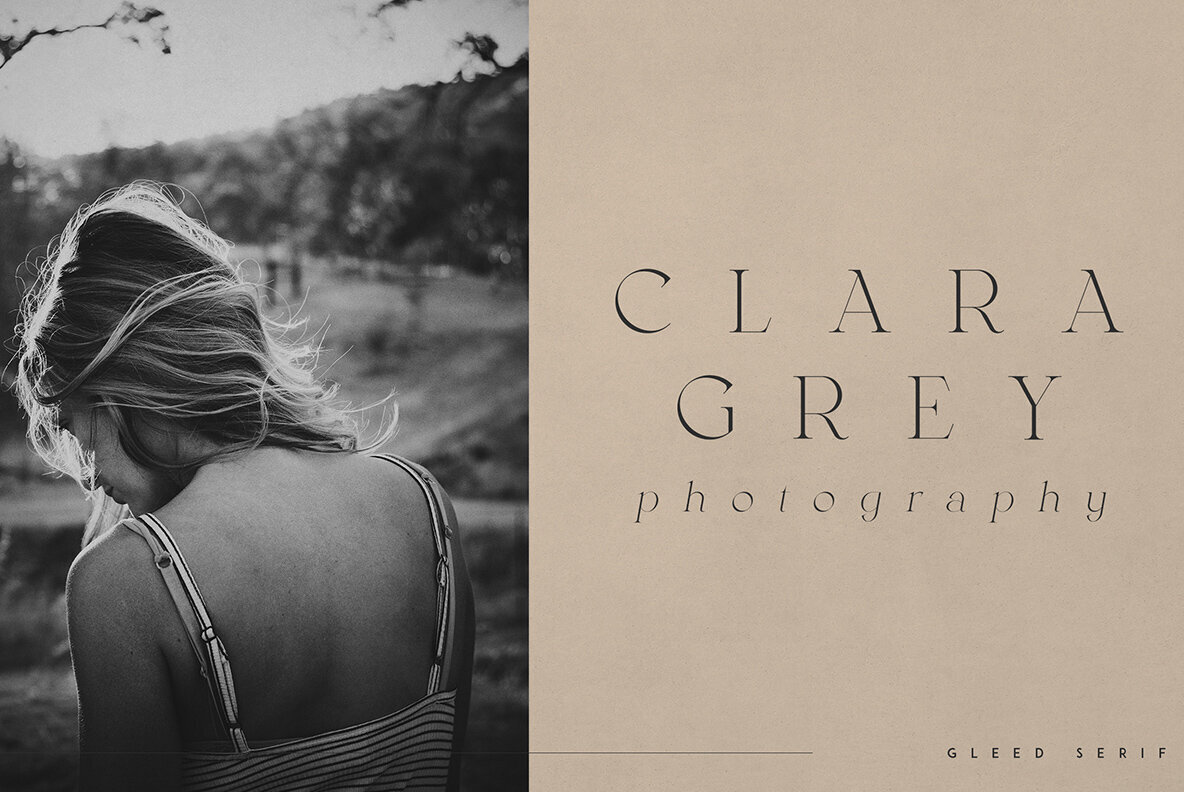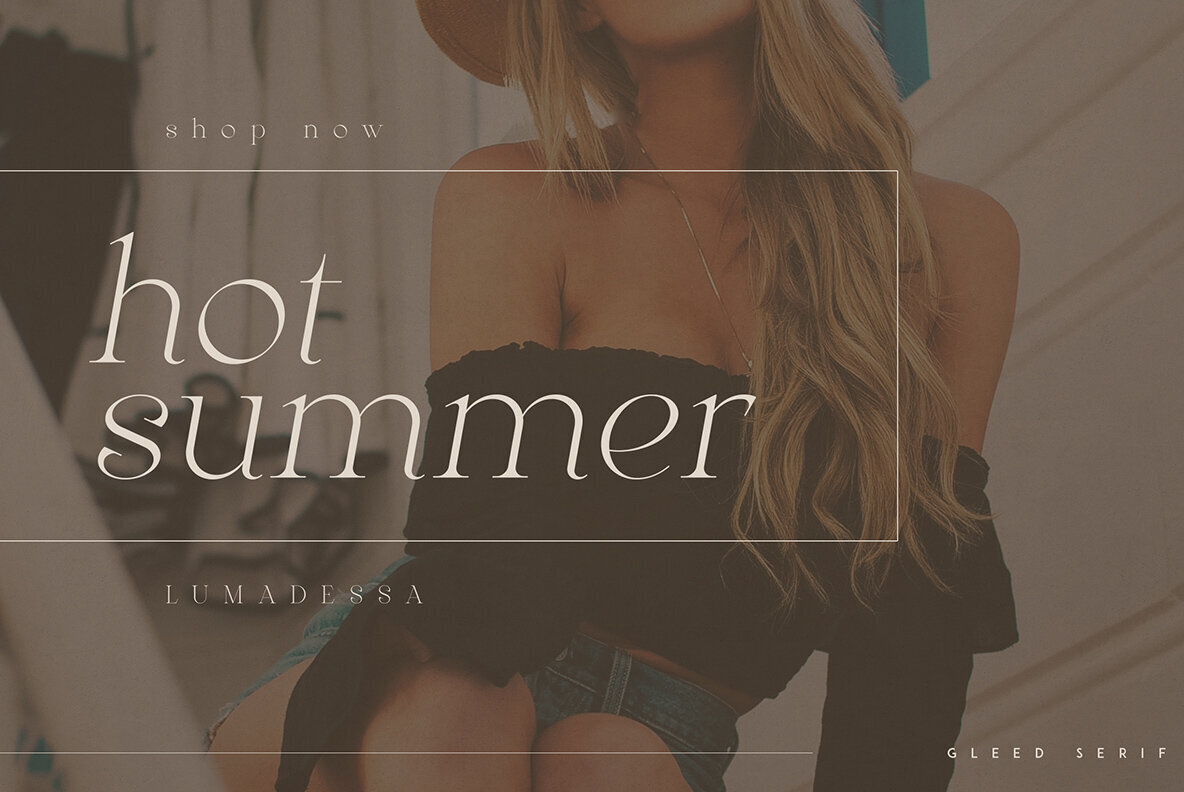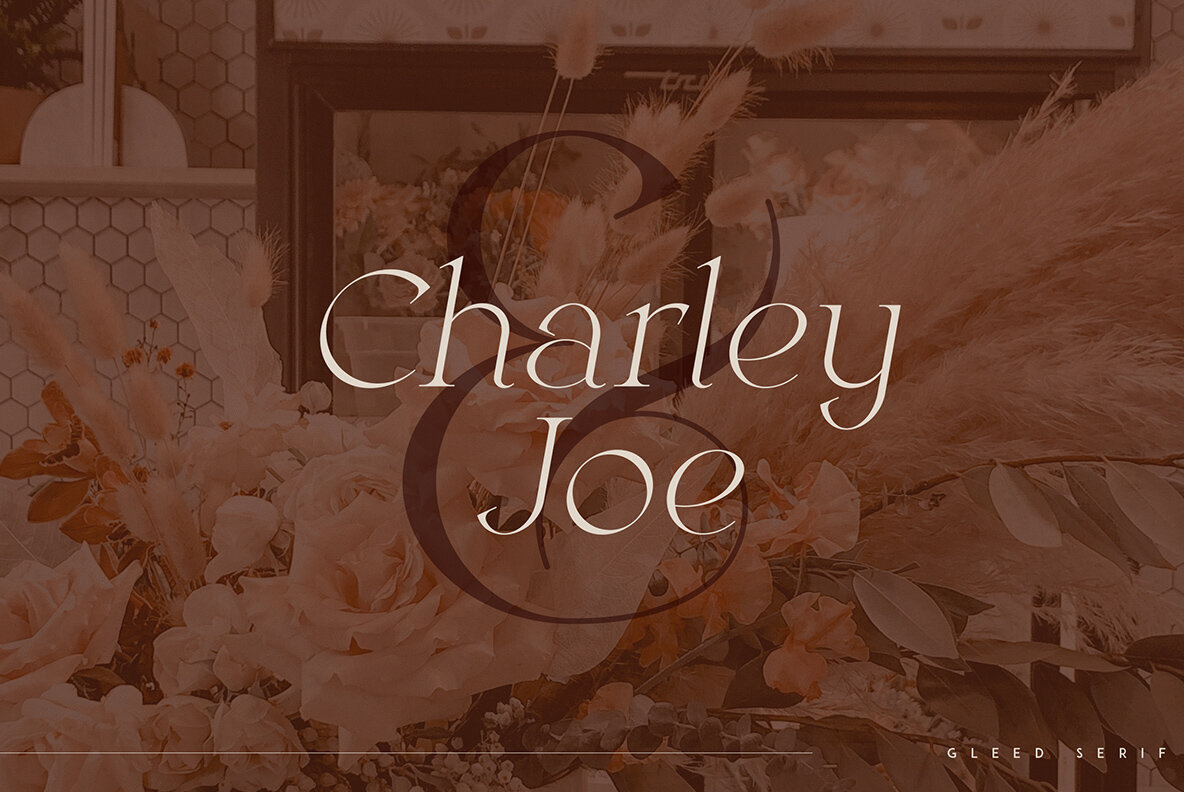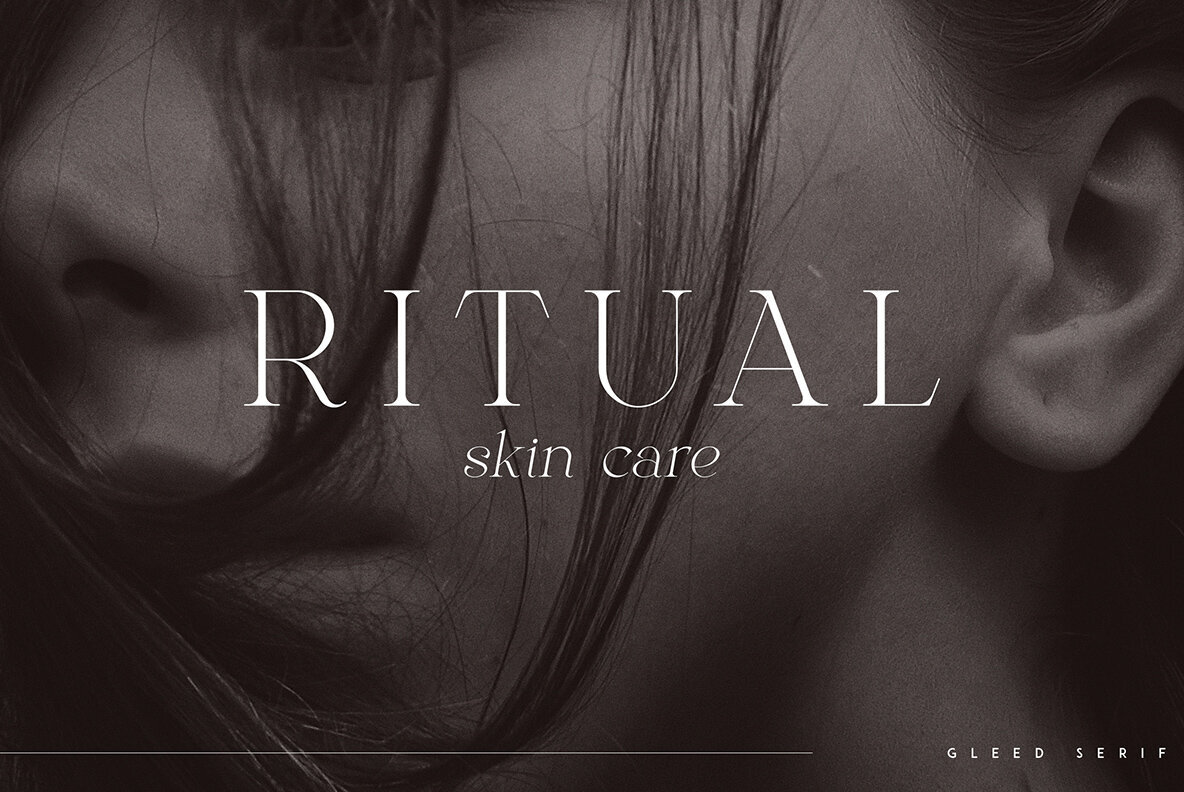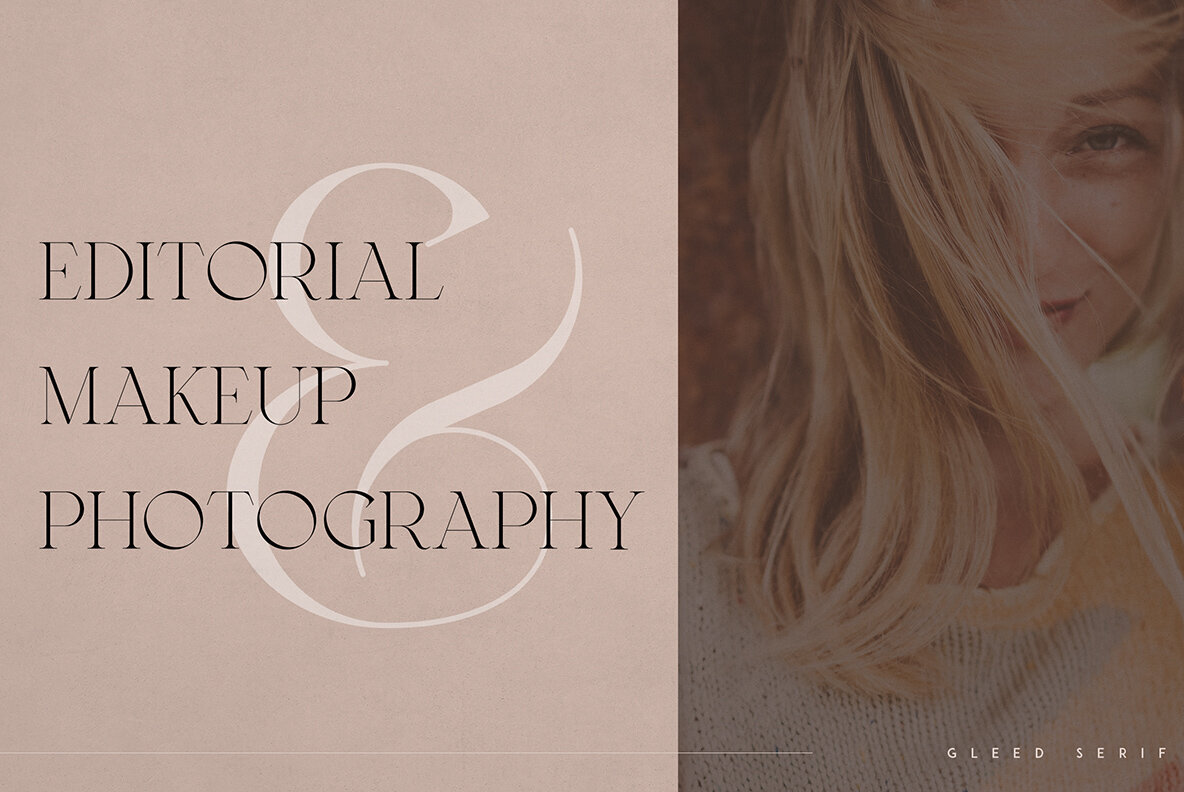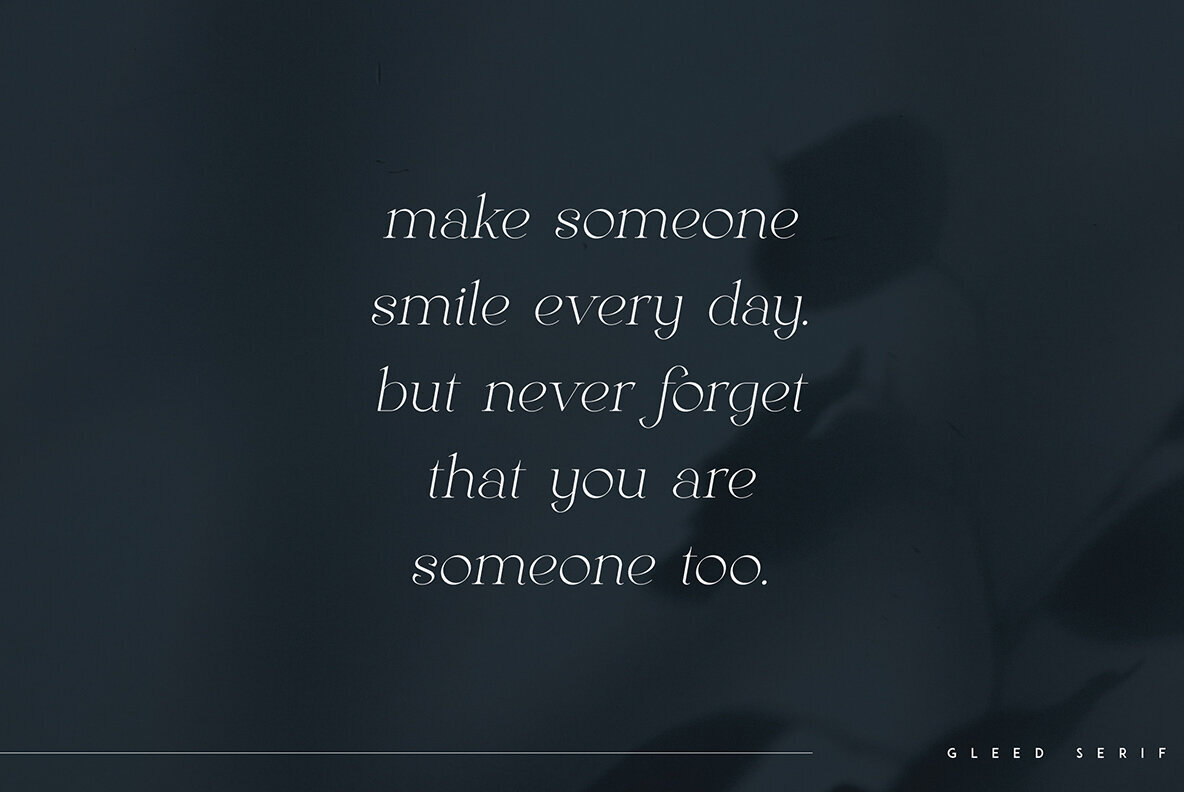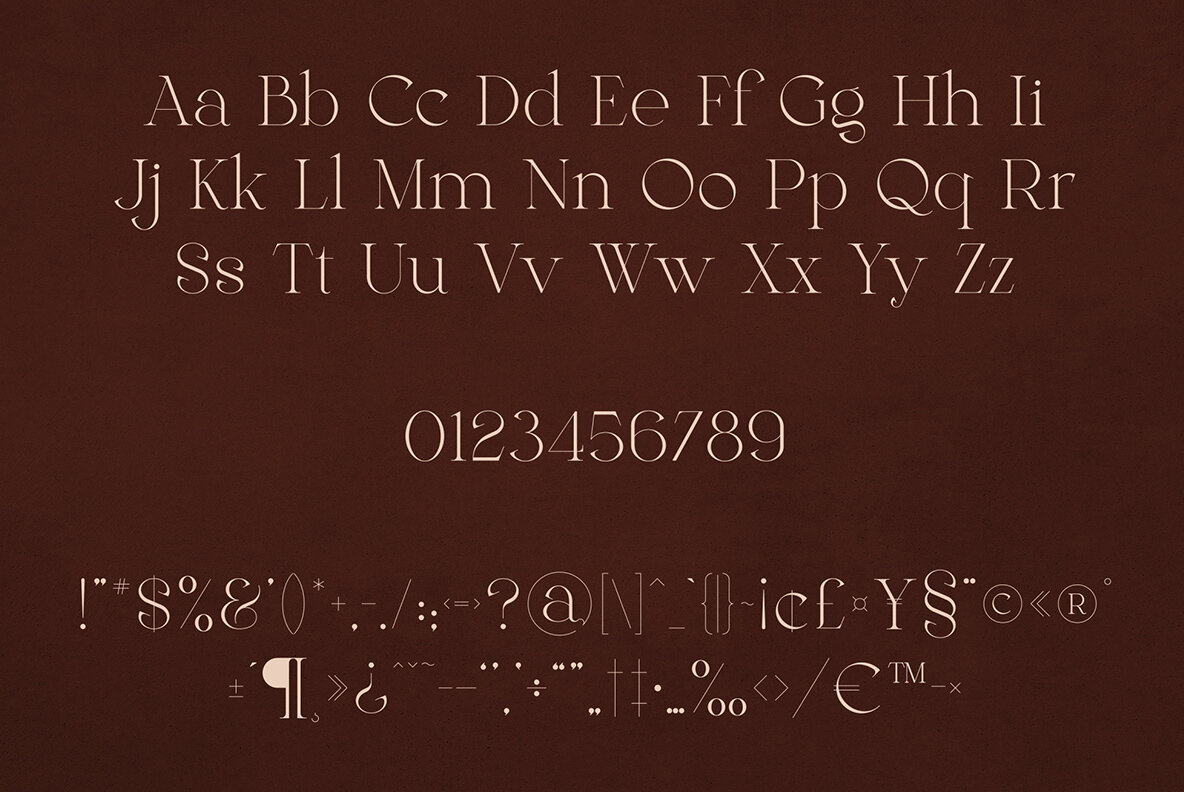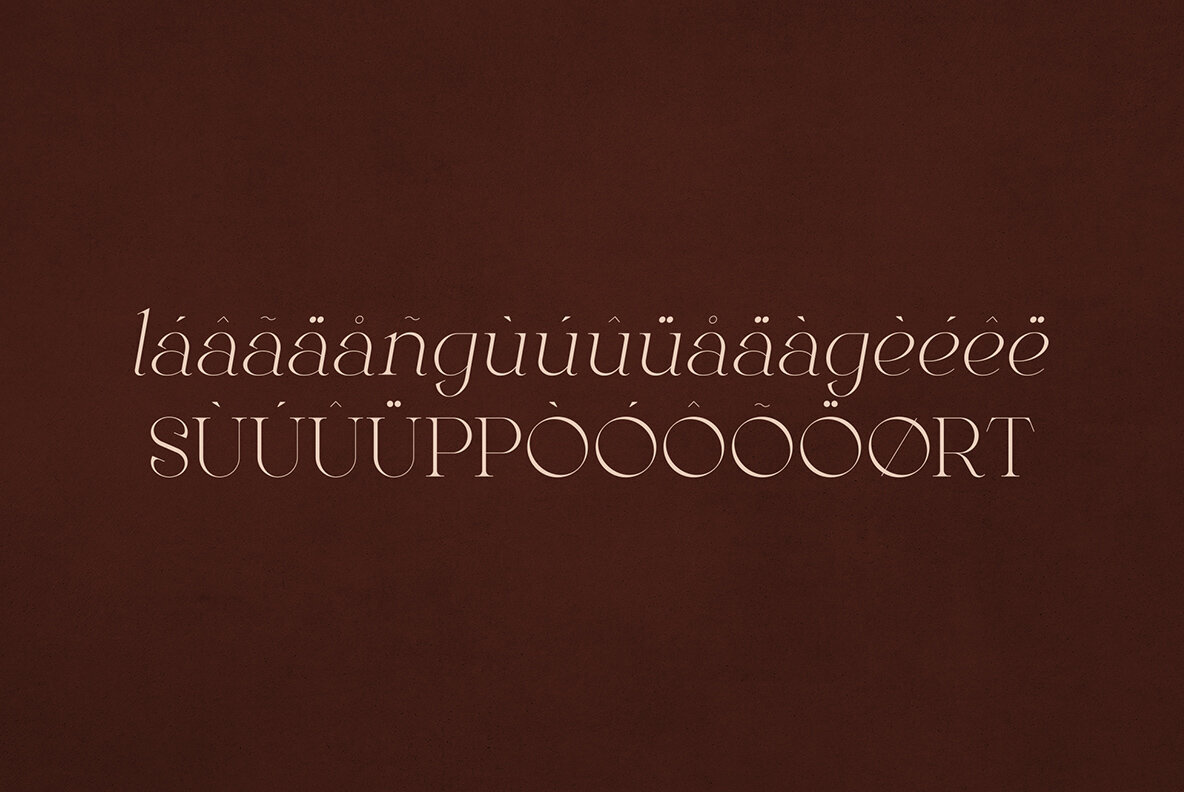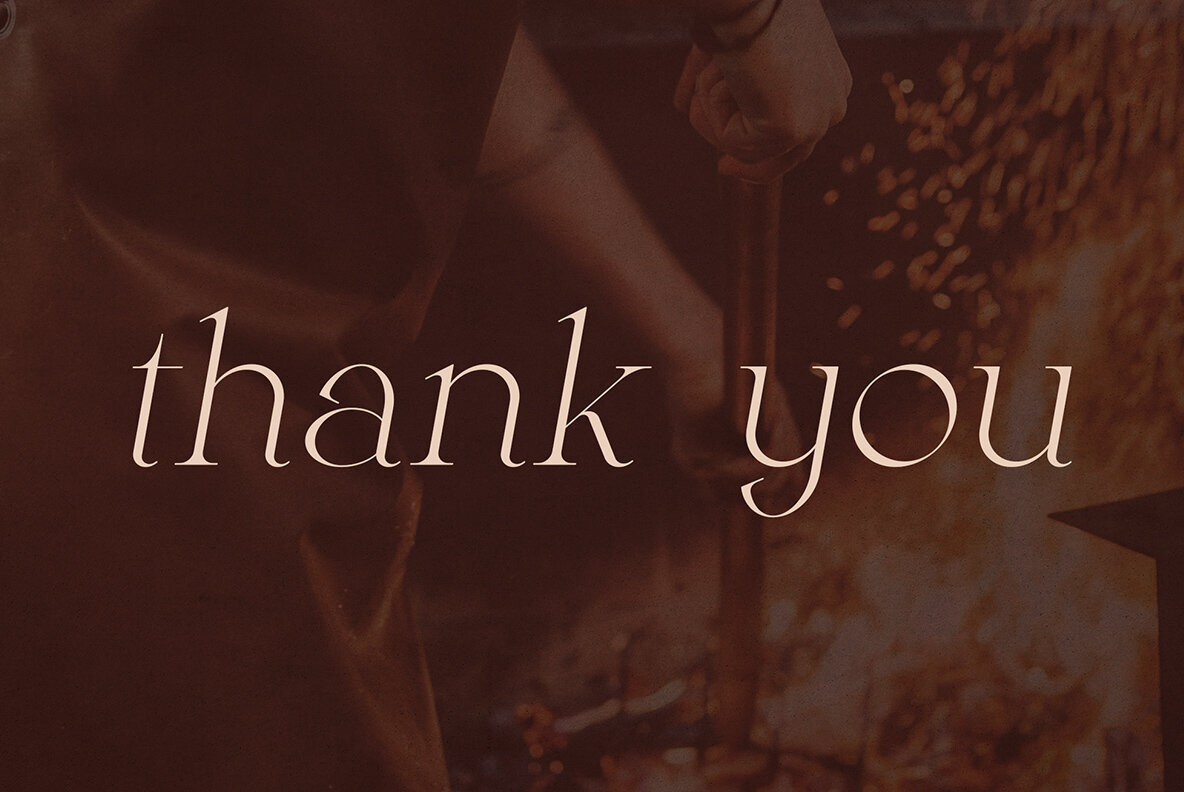
Gleed Font
Gleed Regular
Gleed Italic
Gleed Alternate
Gleed stands out as a minimalist and versatile typeface, seamlessly blending style and functionality. Crafted by VP Creative Shop, this font comes with three distinct variations and supports multiple languages, making it an ideal choice for both large and small scales. Whether you're embarking on a branding project, designing homewares, or conceptualizing product packaging, Gleed provides the perfect stylistic touch. It enhances magazine headers with sophistication or simply serves as an elegant text overlay on various backgrounds.Gleed: Minimalist Typeface for Versatile Design